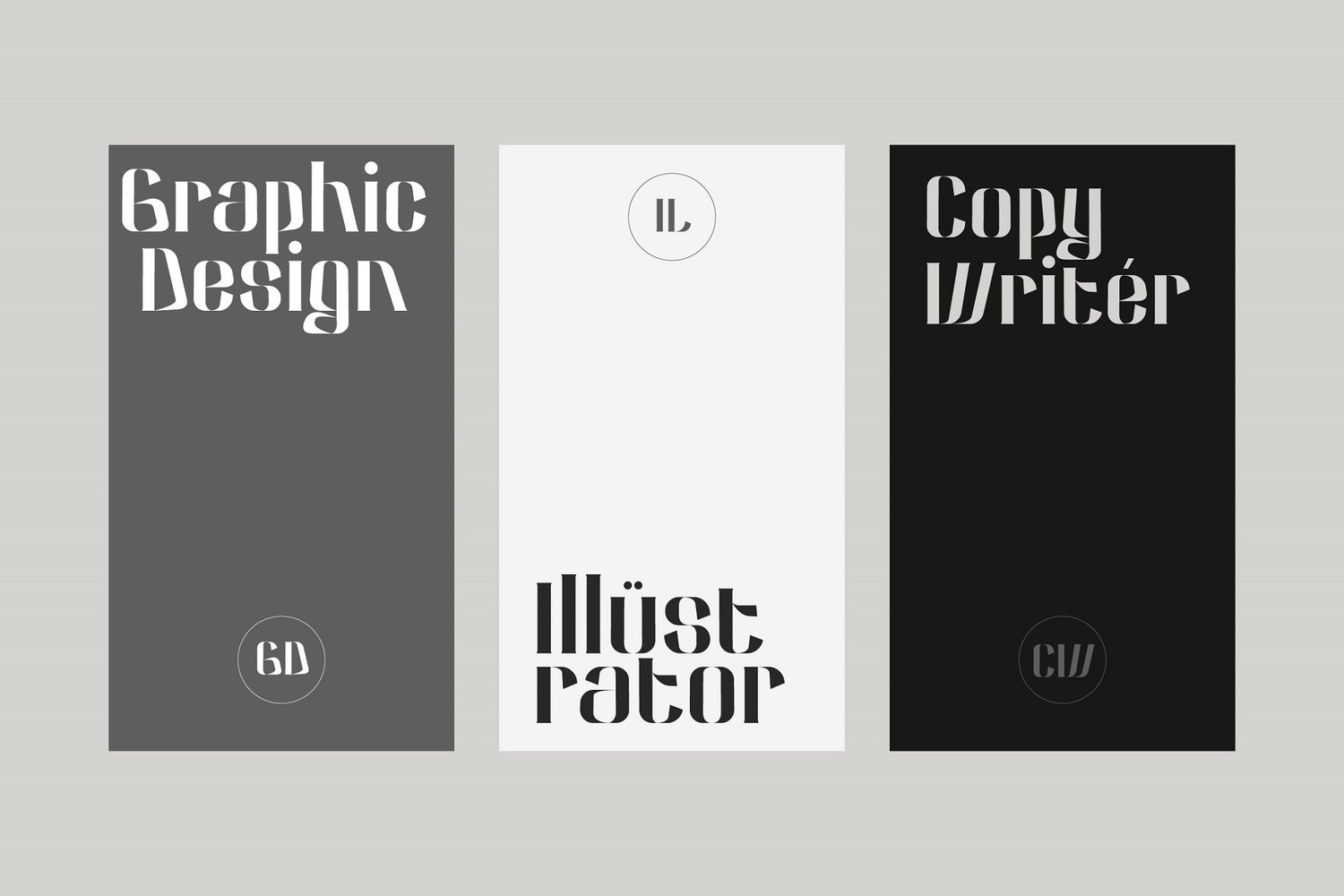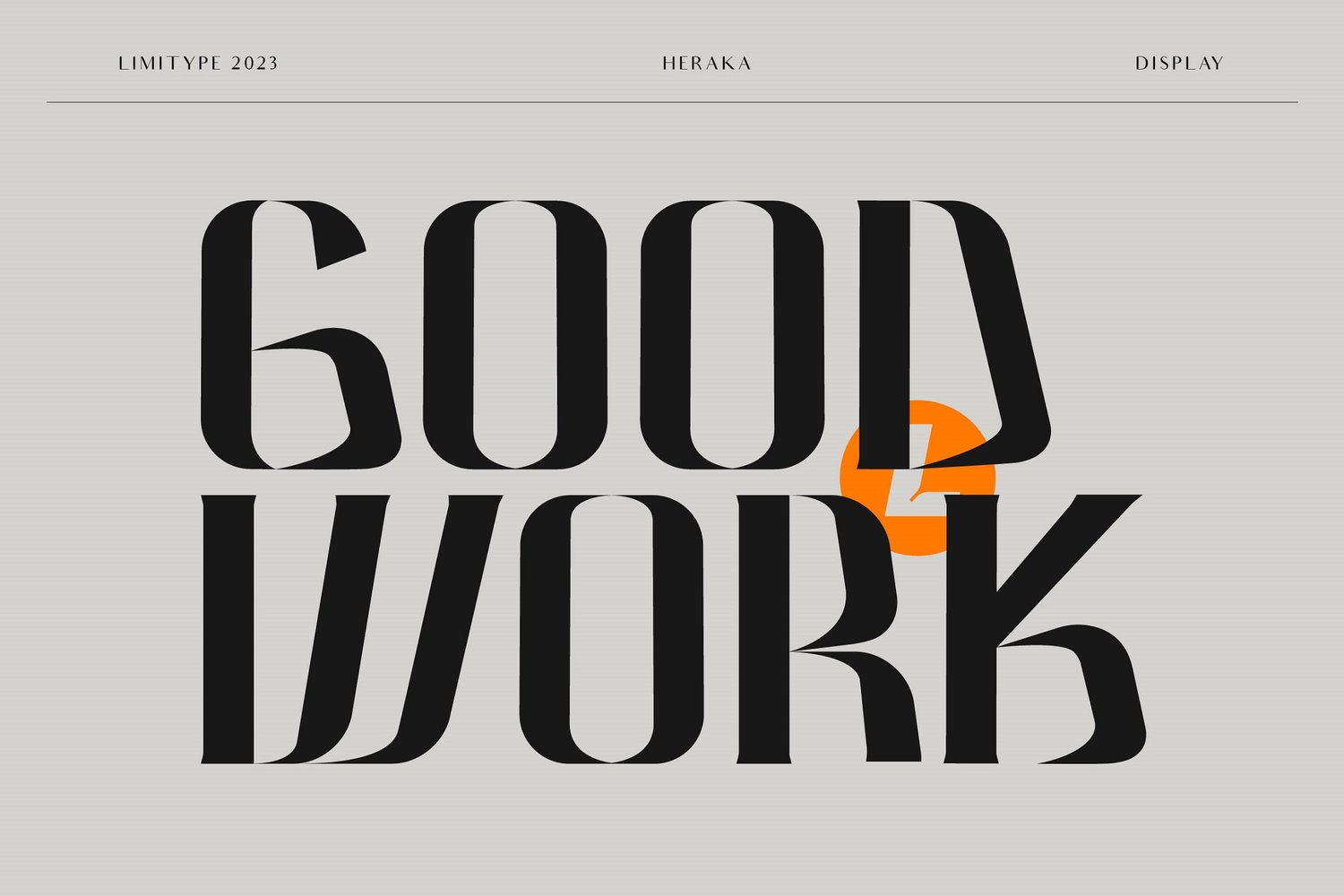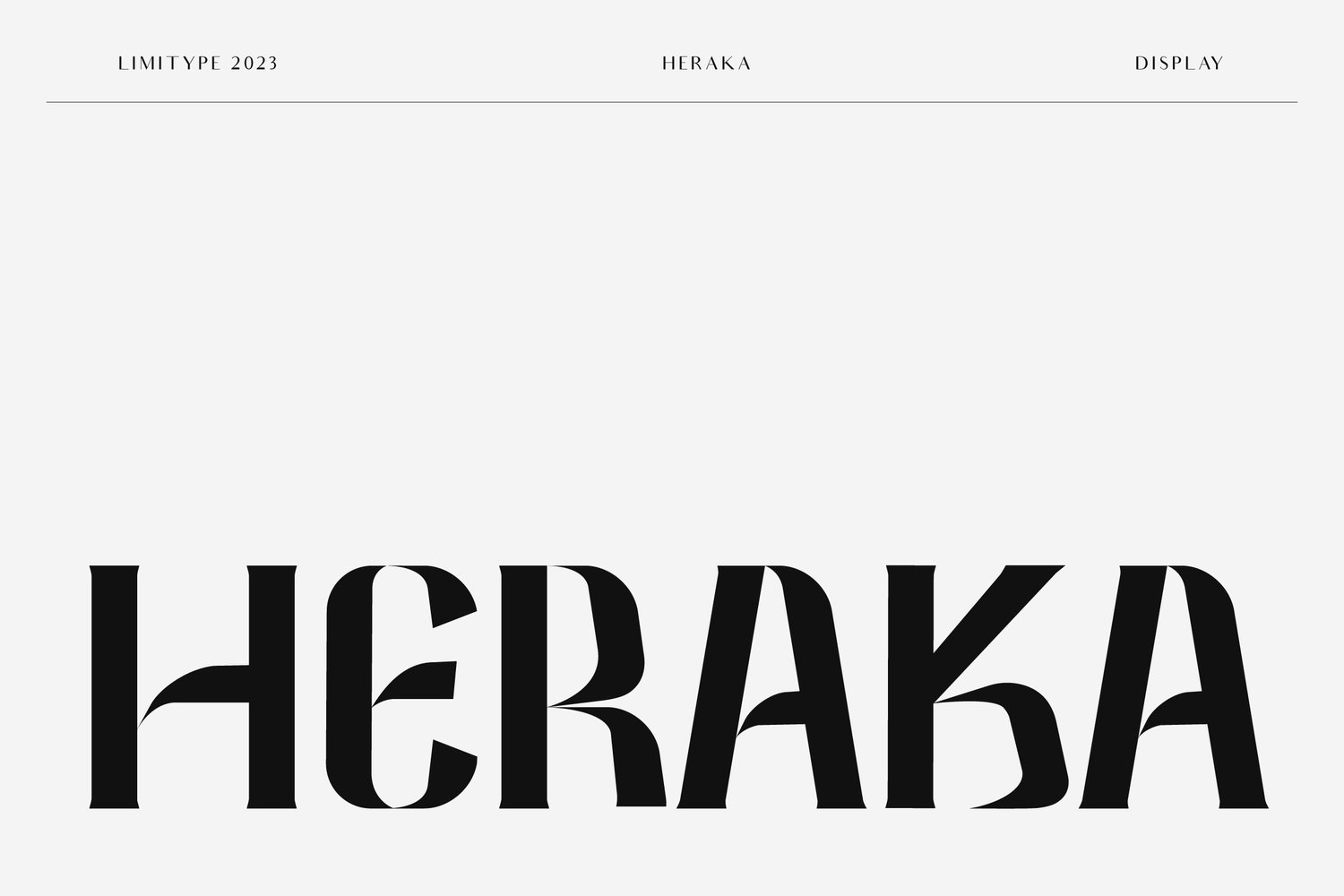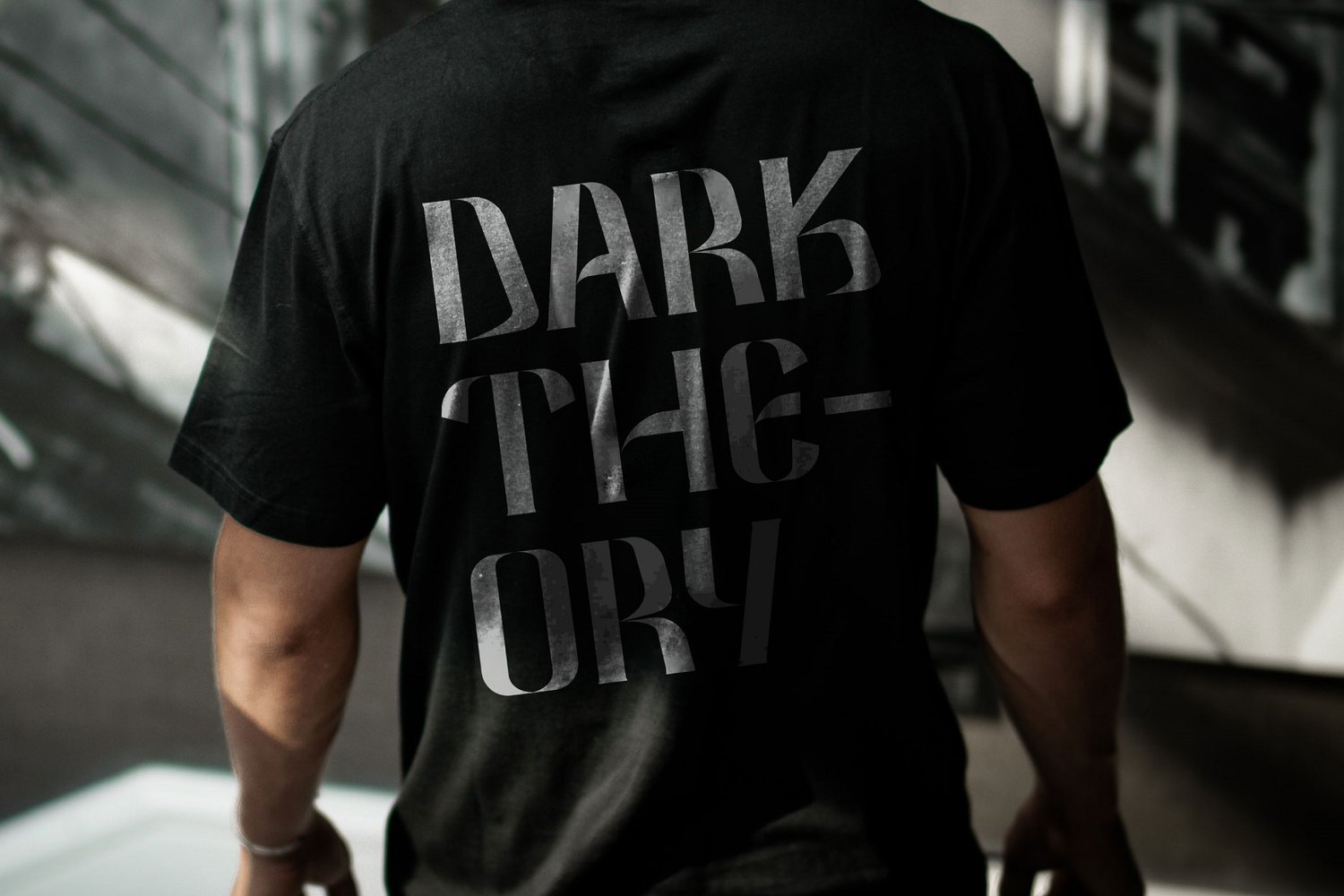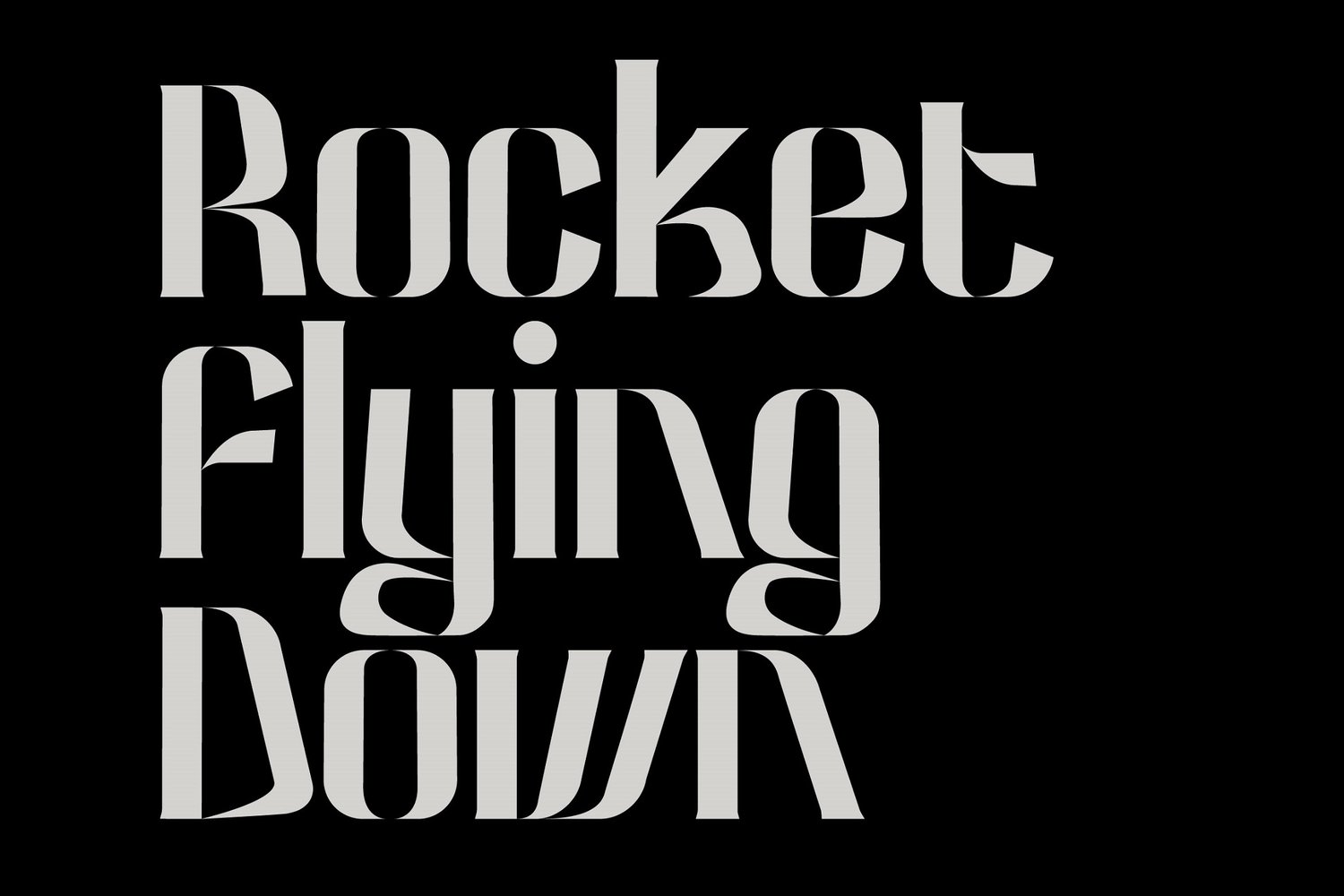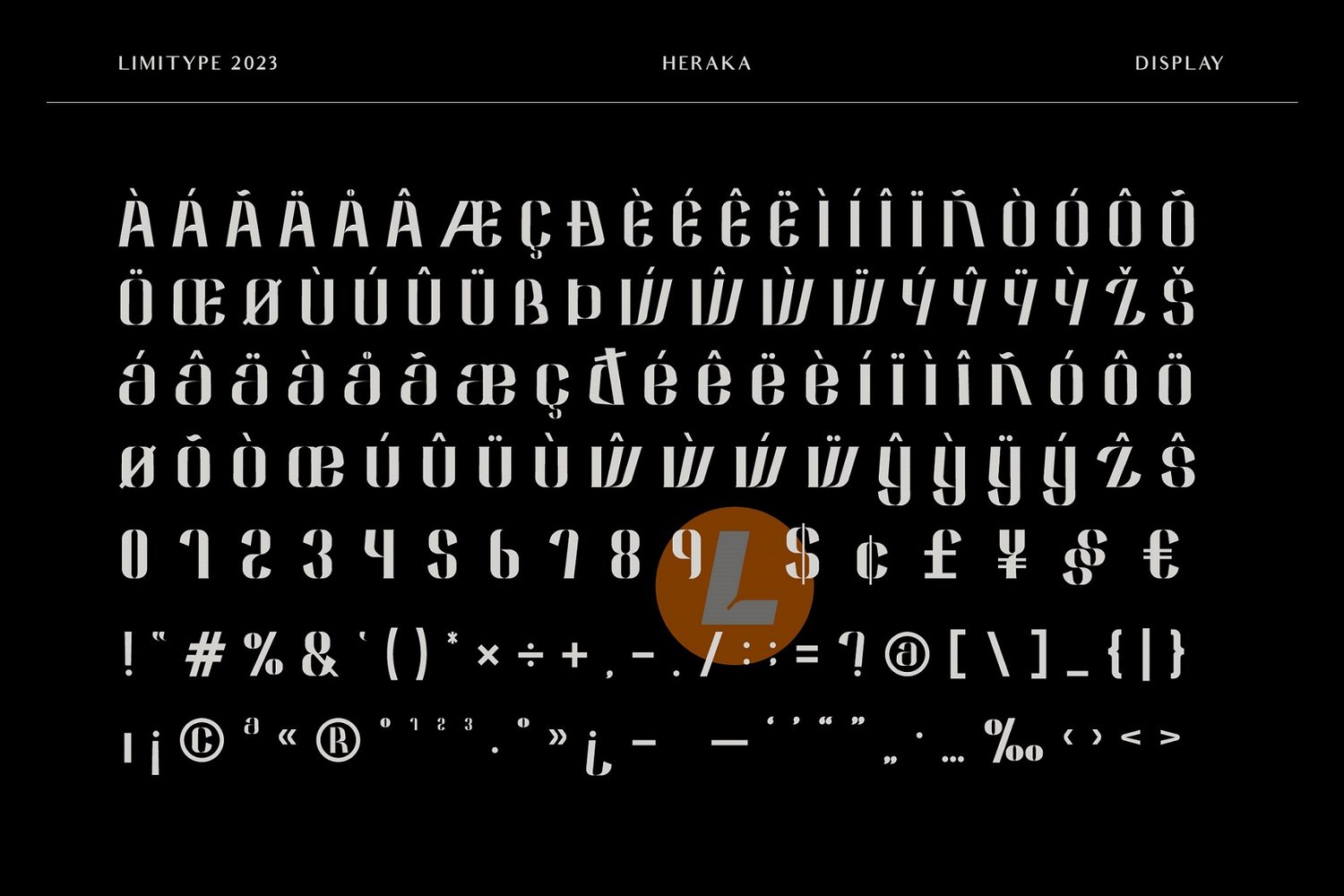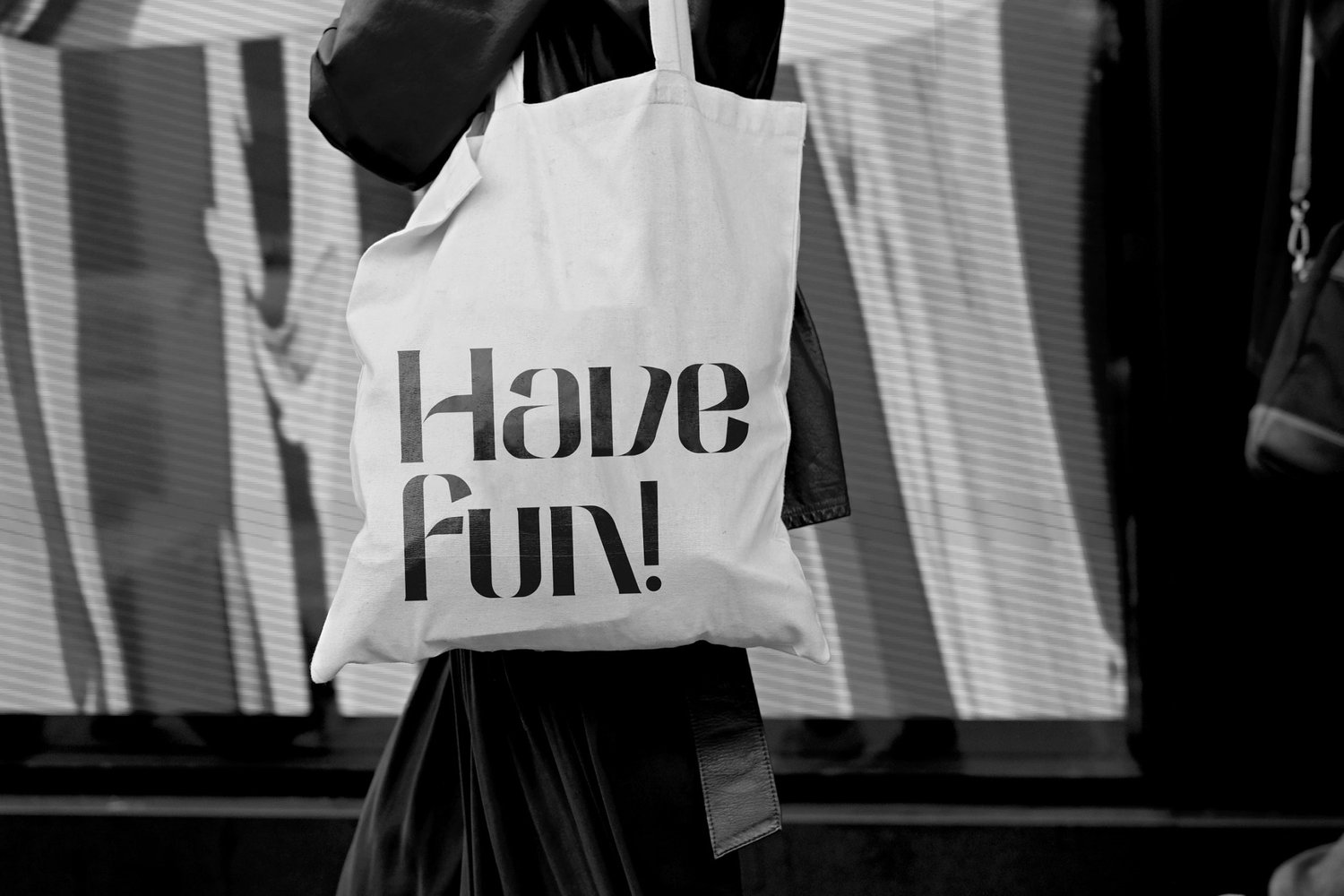
Heraka - Modern Display Font
Heraka is a modern display font with a unique shape suitable for your design needs such as posters, logos, t-shirts and headlines. This design can be applied to any type of design that is luxurious, feminine or even masculine. Available with uppercase, lowercase, numeral symbols and multilingual